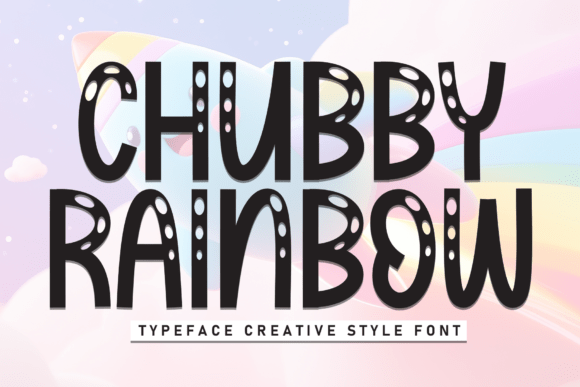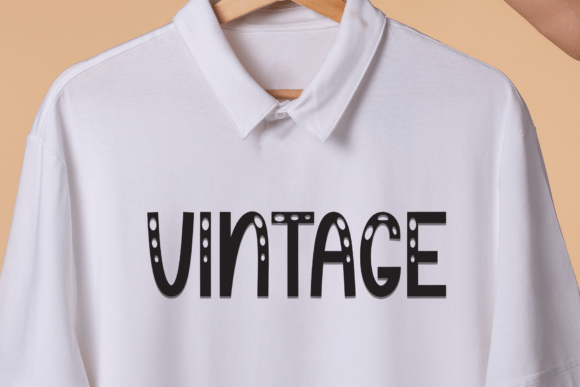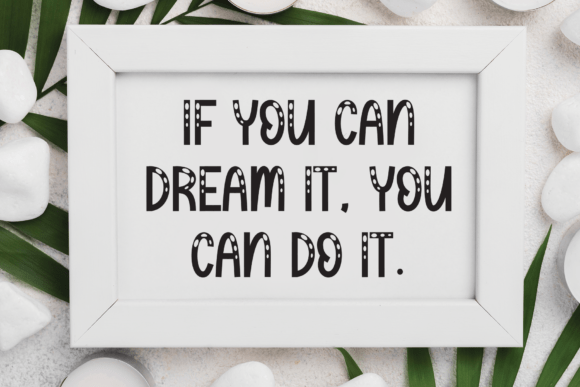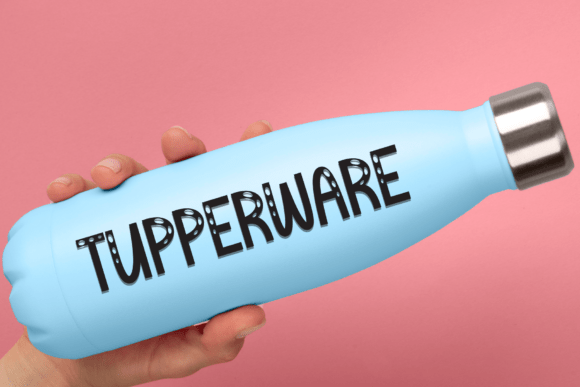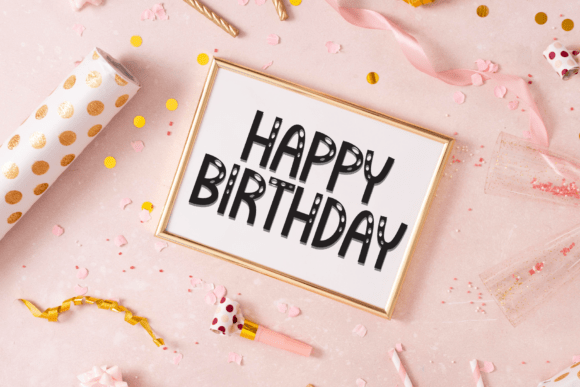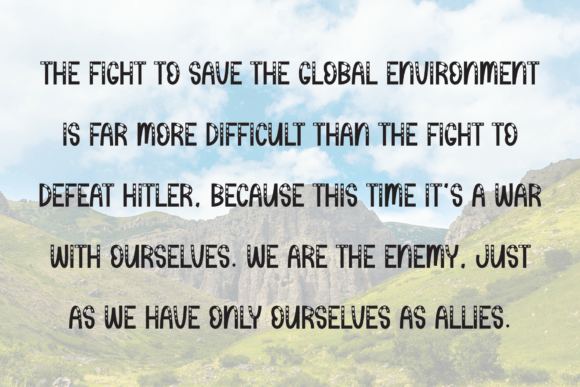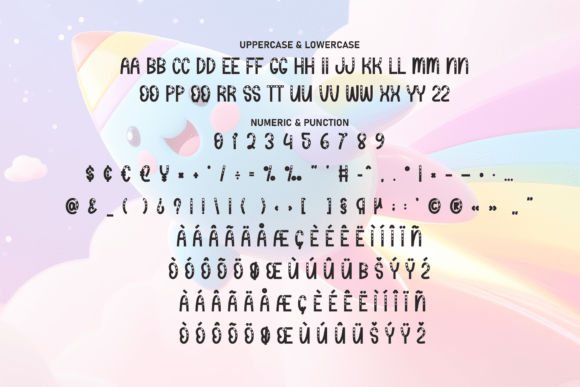
Discover the Perfect Blend of Whimsy and Sophistication: Chubby Rainbow Font
As creatives, we’ve all been there – staring at a blank page, trying to conjure up the perfect font to capture the essence of our brand or design. It’s a moment of pure creative chaos, where the right choice can make all the difference between a design that’s merely good and one that’s truly great. For designers seeking a font that embodies the perfect balance of playfulness and polish, the Chubby Rainbow Font is an exciting discovery.
This charming display font combines the simplicity of modern typography with the friendliness of handwritten script, making it an ideal choice for branding, headlines, packaging, and digital content. With its crisp structure and versatile style, the Chubby Rainbow Font adds a warm and inviting touch to any design, delivering clarity and charm in equal measure.
Key Features of Chubby Rainbow Font
- Unique Characteristics: The Chubby Rainbow Font features a distinctive, playful design with bold and rounded shapes, making it perfect for adding a touch of whimsy to your designs.
- Color Options: The font comes in a range of vibrant, rainbow-colored variations, allowing you to choose the perfect shade to match your brand or design aesthetic.
- Legibility: Despite its playful design, the font remains highly legible, making it suitable for body text, headings, and other design elements.
Designer Review: Chubby Rainbow Font
Overall, I’d say the Chubby Rainbow Font has some fun and playful qualities that could make it a great fit for certain projects. ✨ Here are some things that work well:
- Unique and quirky character shapes: The font’s rounded, chubby design gives it a distinct and whimsical feel that could be perfect for illustrations, children’s books, or social media graphics.
- Good legibility: Despite its playful design, the font is still easy to read, which is essential for any font.
- Variety of weights: The font comes in a range of weights, from light to bold, which can be helpful for creating visual hierarchy in your designs.
- Restricted usability: Due to its playful and informal design, the Chubby Rainbow Font may not be suitable for more serious or formal projects.
- Limited language support: The font may not include all the characters and languages you need for international projects.
- Overuse: The font’s quirky design may become overwhelming or distracting if used too extensively.
Overall, the Chubby Rainbow Font is a fun and versatile choice for designers looking to add some personality to their projects. While it may have some limitations, it’s a great option for the right type of project.
Practical Application Guide for Chubby Rainbow Font
Tips for Getting the Most Out of Chubby Rainbow Font
Here are some tips for getting the most out of Chubby Rainbow Font:
- Use Chubby Rainbow Font to add a playful touch to your designs.
- Combine Chubby Rainbow Font with other fonts for a unique look.
Chubby Rainbow Font is perfect for:
- Food and drink branding
- Fun and playful advertising
Great Vibes is a beautiful, handwritten font perfect for creating a whimsical and playful atmosphere in designs. It features elegant curves and flourishes, making it ideal for invitations, greeting cards, and other creative projects.
Compared to Chubby Rainbow Font, Great Vibes has a more refined and sophisticated look, with less emphasis on bold colors and playful shapes. It’s a great choice for designers who want to add a touch of elegance to their designs.
Carolyna Pro is a modern, sans-serif font with a strong, geometric feel. It’s perfect for creating clean and minimalist designs, making it ideal for corporate branding, brochures, and other business materials.
What font sizes and styles are available for the Chubby Rainbow Font?
The Chubby Rainbow Font includes a range of font sizes and styles, including regular, bold, italic, and bold-italic. The font is also available in various weights, including light, regular, medium, and bold. You can use these styles and weights to create a range of visual effects and emphasis in your designs.